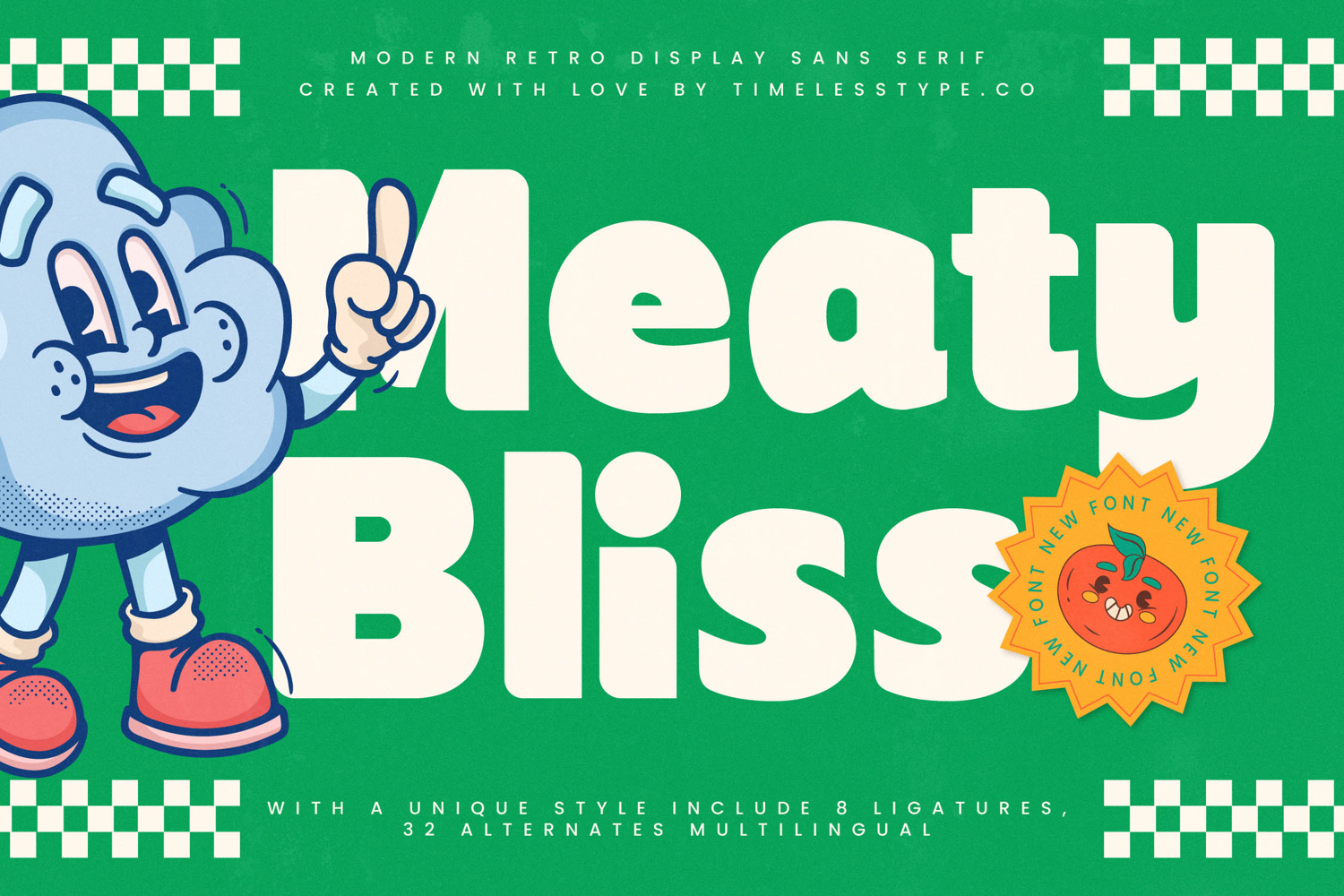
Meaty Bliss - Modern Retro Display Sans Serif
The Meaty Bliss Typeface is a modern retro display sans serif font with a bold, playful style full of fun character. Featuring 8 ligatures and 32 stylistic alternates, this font gives designers the flexibility to create typography that feels unique, friendly, and expressive. Its bold, rounded letterforms convey an energetic and approachable vibe, making it ideal for design projects that aim to showcase joy and strong visual appeal.
This typeface works perfectly in editorial design, such as youth magazines, creative zines, and lifestyle posters. The alternates and ligatures provide freedom for fresh and dynamic typographic variations.
In branding and packaging, Meaty Bliss is well-suited for food and beverage products, snacks, children’s brands, cafés, and creative products. Its fun, retro-modern aesthetic builds a visual identity that feels recognizable, friendly, and delightful.
For entertainment and promotional design, this font shines on music event posters, festivals, creative campaigns, and interactive promotional events. Its bold sans serif style ensures messages remain clear, striking, and attention-grabbing.
In the realm of digital design, Meaty Bliss excels across social media content, interactive apps, website branding, and motion graphics. With multilingual support, it is ready to be used in international projects with consistent visual impact.
In short, Meaty Bliss Typeface is a retro sans serif display font designed to bring boldness, fun, and playfulness. Perfect for editorial, branding, packaging, entertainment, advertising, and digital campaigns, this font transforms typography into a cheerful, unique, and positively energetic design element.